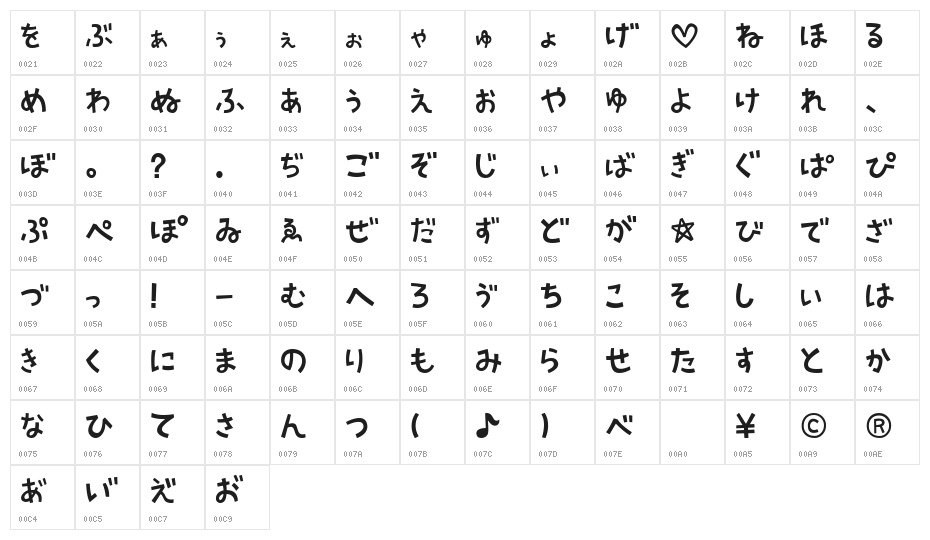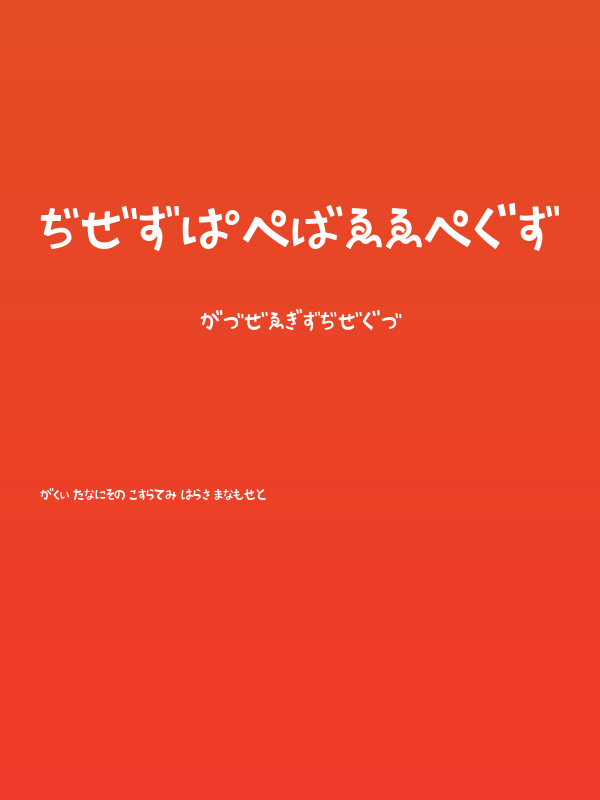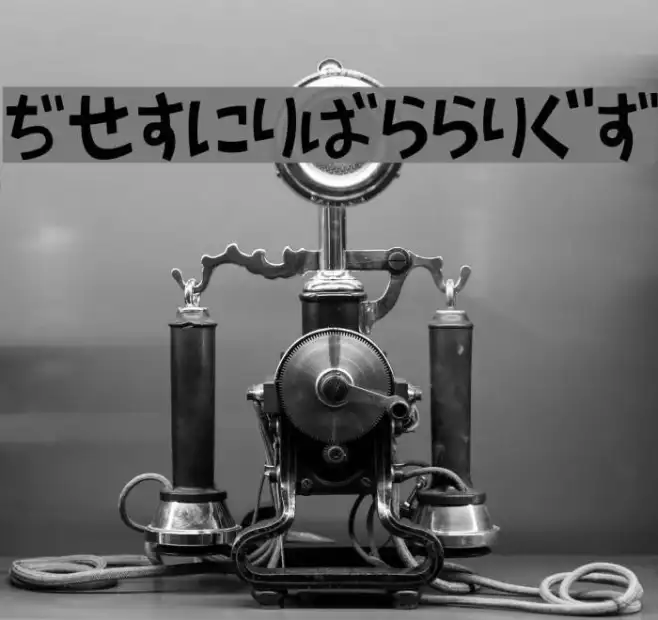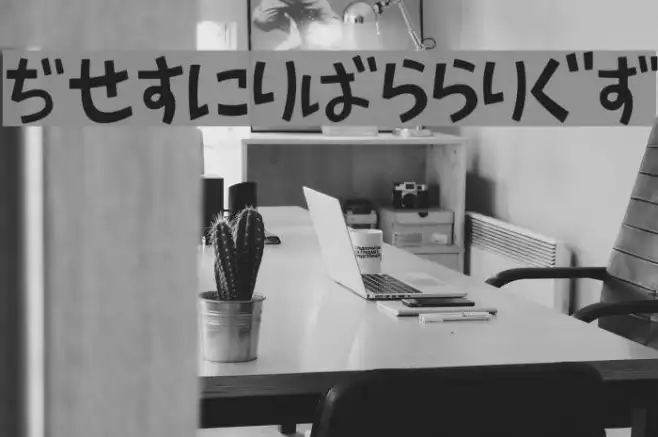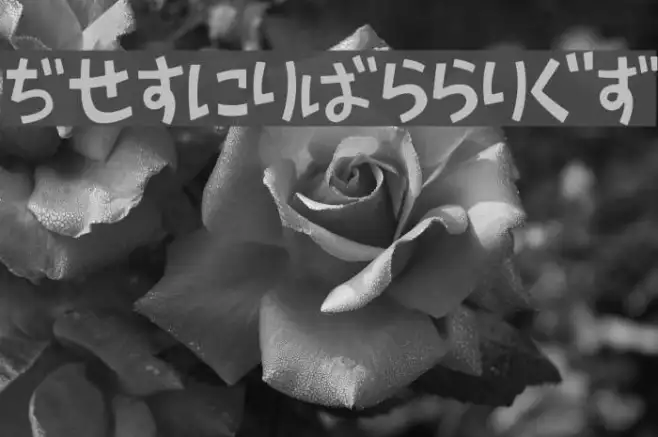
AprilFoolHR Font
AprilFoolHR Description
This font features a playful and whimsical style, characterized by its bold and rounded letterforms. The strokes are thick and consistent, giving it a cartoonish and friendly appearance. The characters are slightly slanted, adding a dynamic and lively feel. The overall design is informal and approachable, making it suitable for creative and fun projects. The spacing between characters is normal, ensuring readability while maintaining its quirky charm.
| Proposed Projects | Ideal for children's books, comic strips, playful branding, and casual invitations. |